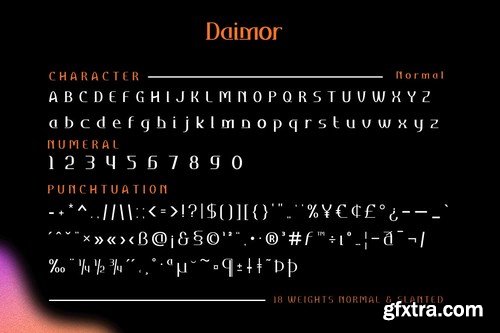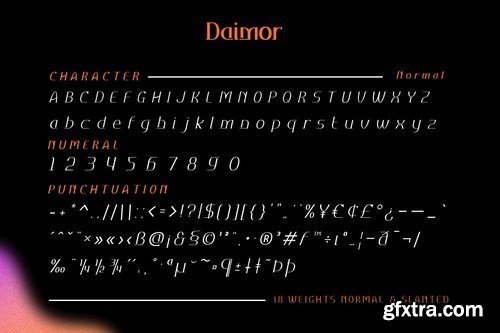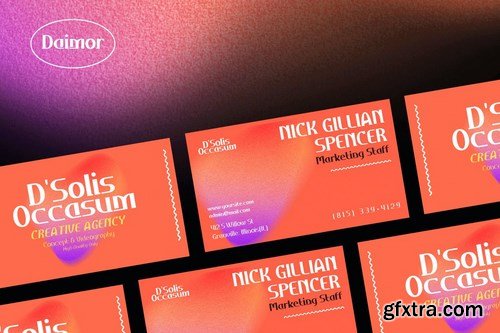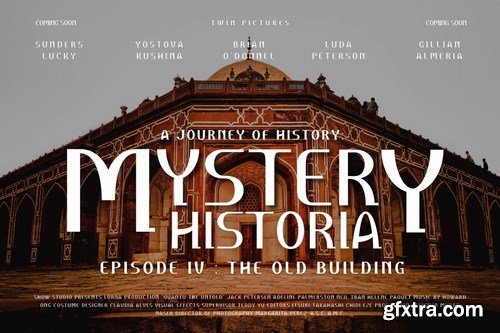
We’re excited to share with you our newest typeface family, the Daimor San Serif. This new set of fonts will give your designs luxury and uniqueness for all kinds of project needs. This pack comes in 18 different styles which makes it perfect for a wide variety of projects. Each style has been uniquely created to maximize beauty and character. This font is specially designed for a variety of display design and branding projects, but will also look great as headlines, text, banners, posters, or anything else.